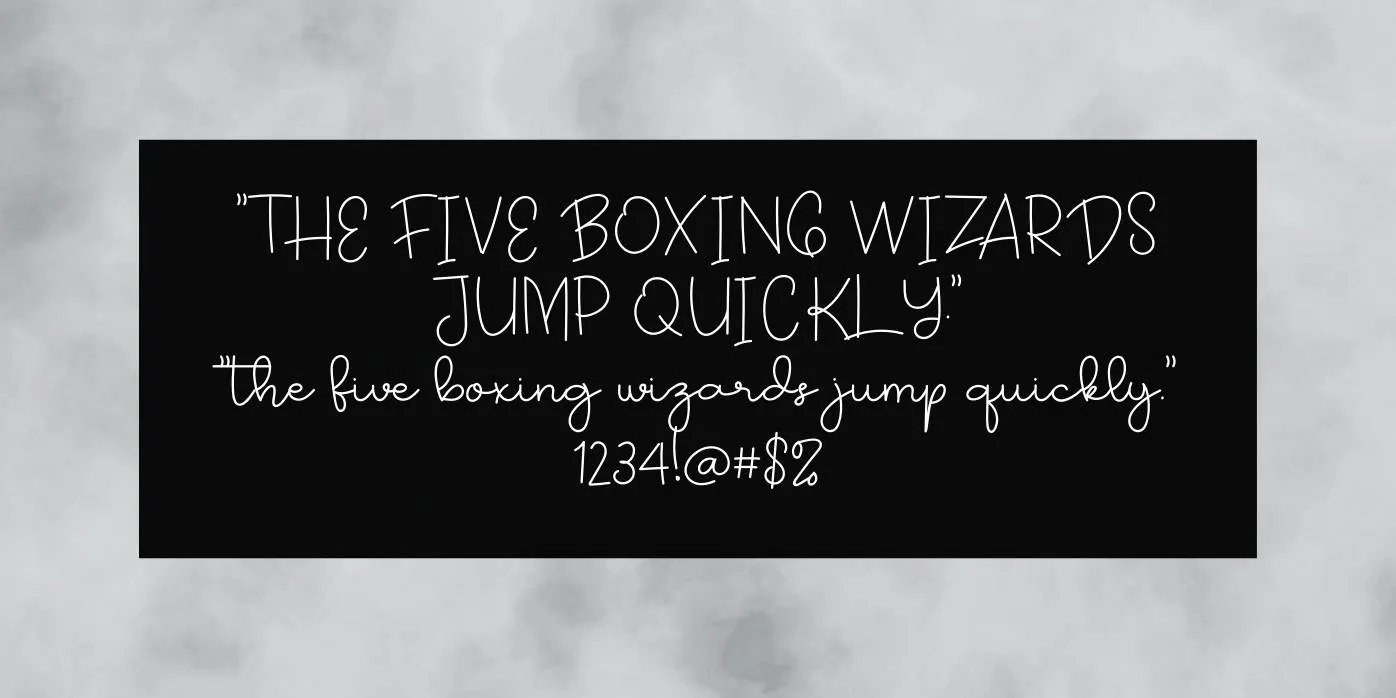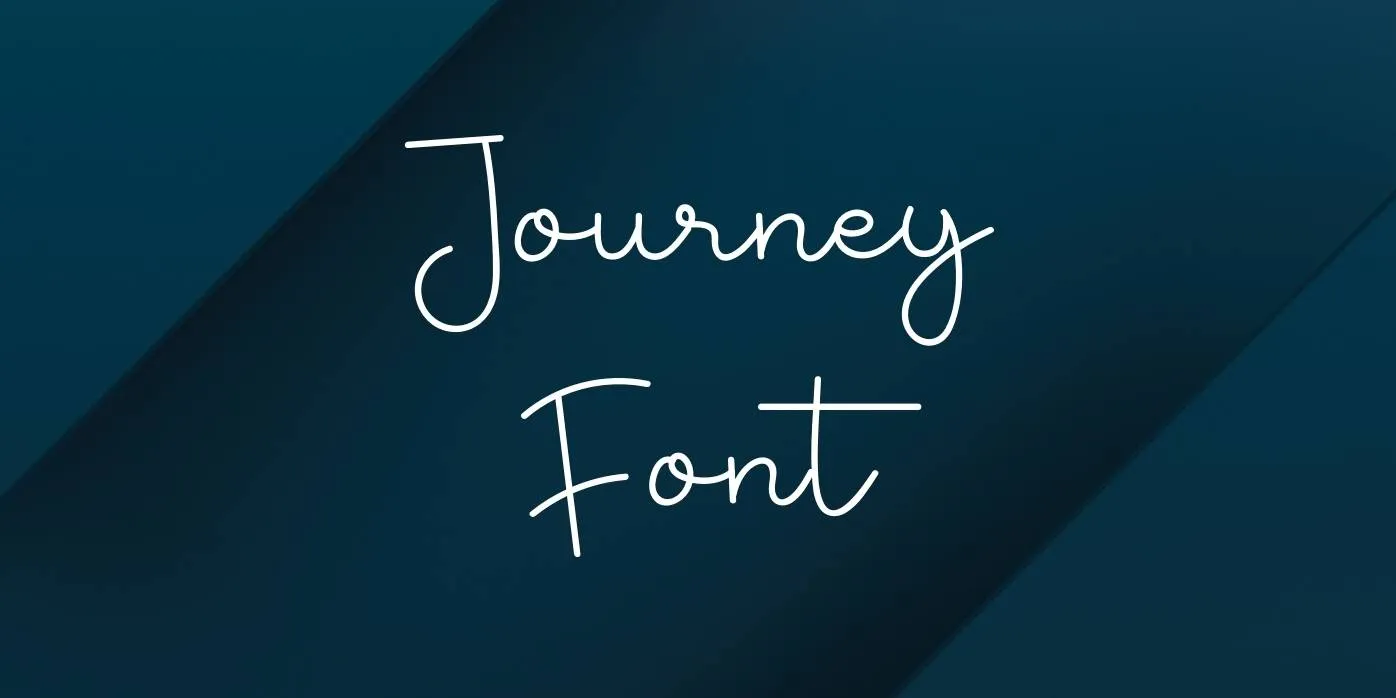
Journey Font
Journey Font is a script typeface designed by Vincent Connare in 1996. The face was designed to be used with Microsoft’s new operating system, Windows 95. It is the default font for the Windows operating system. The font has a unique design that makes it easy to read on screens.
The font is named after the rock band Journey, whose songs are often played on the radio. If you are looking for a unique font that is easy to read, the Font is a great choice. The Font was created by Vincent Connare, who is also responsible for creating the Comic Sans font. The Journey Font is a script typeface, which means that it does not have serifs or small lines at the end of each stroke.